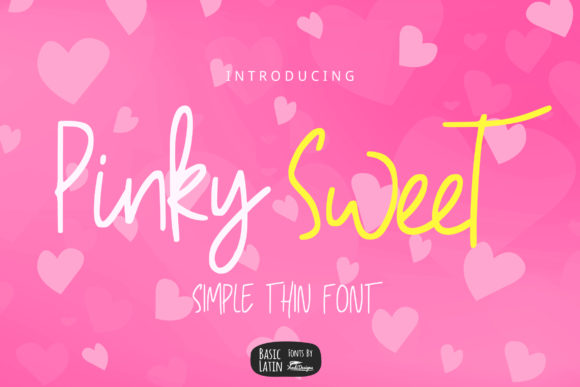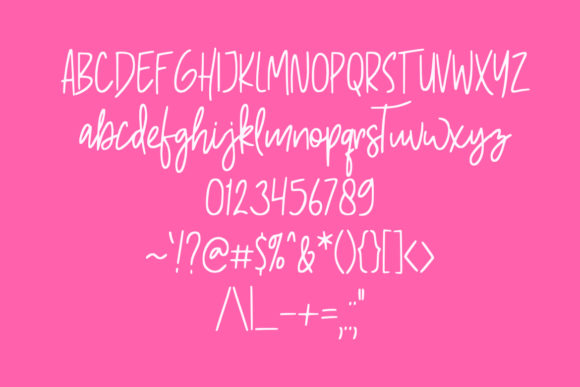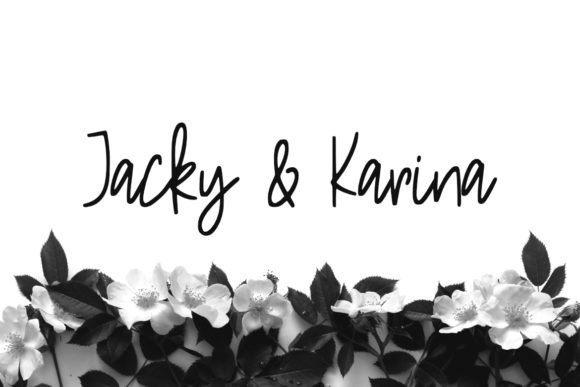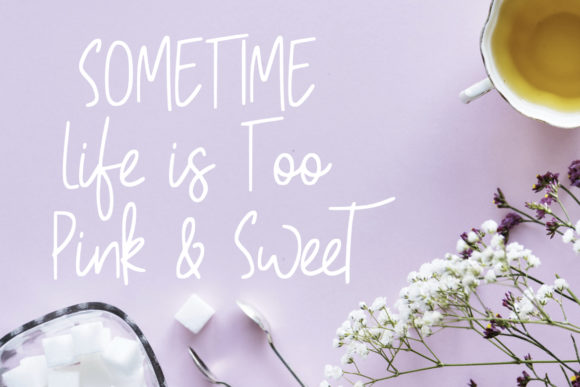
Pinky Sweet Font
About Pinky Sweet Font
Pinky Sweet is a playfully handdrawn script featuring cute letters. Get inspired by its unique charm, and turn any design project into a true standout.